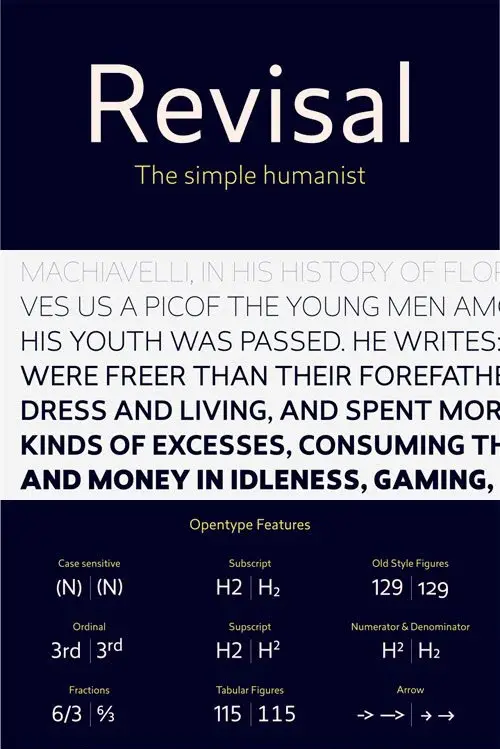
Revisal Font Family
Revisal is a humanist sans family. Open forms are very useful for signage. The Revisal family includes 7 weights, from Hairline to Black, with their corresponding italics. Each font includes OpenType Features such as Stylistic Alternates, Proportional Figure, Tabular Figures, Numerator, Superscript, Denominators, Scientific Inferiors, Subscript, Ordinals and Fractions.